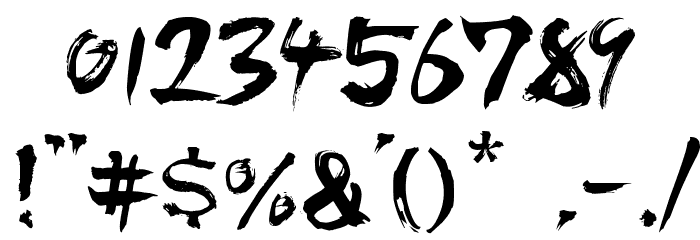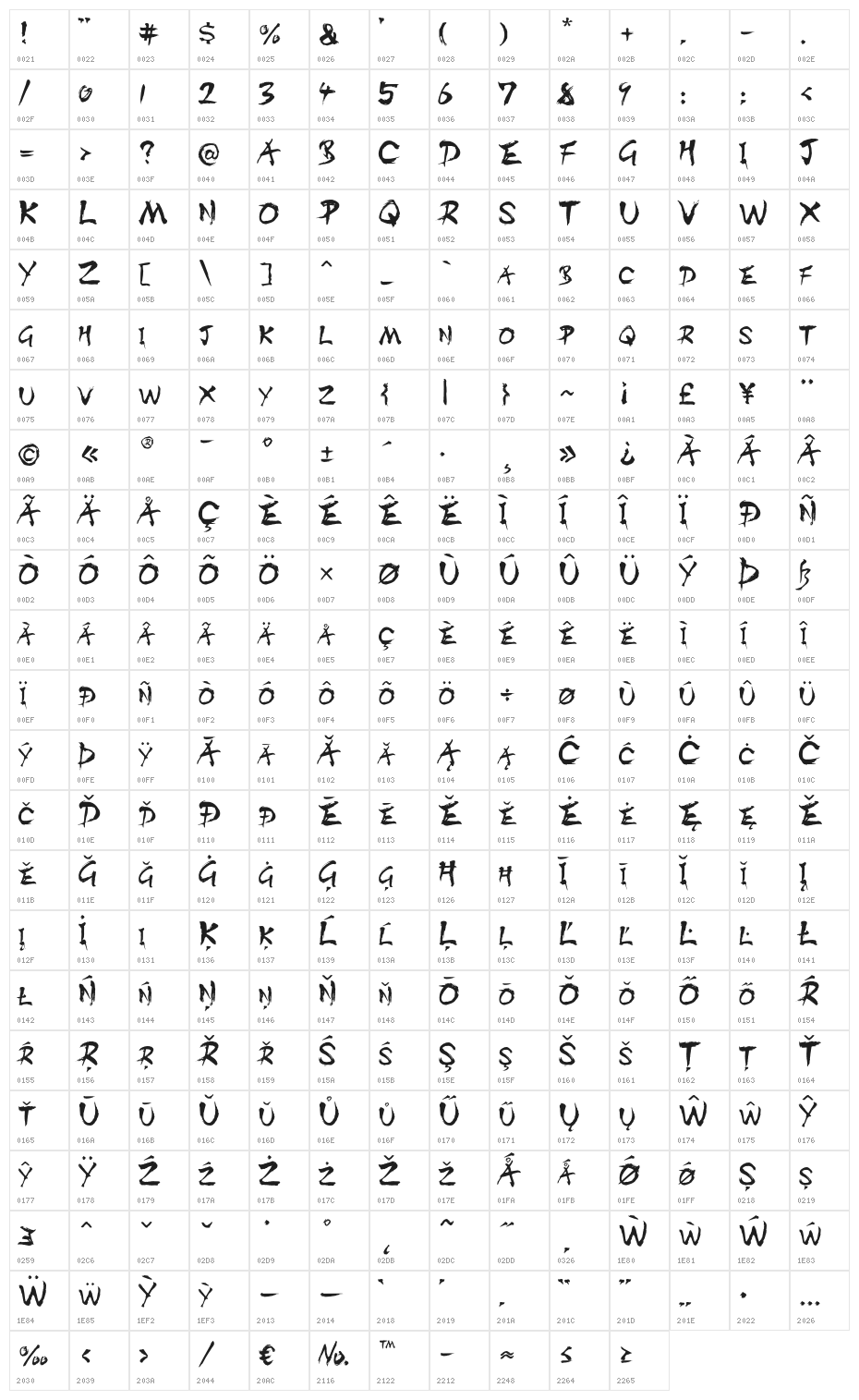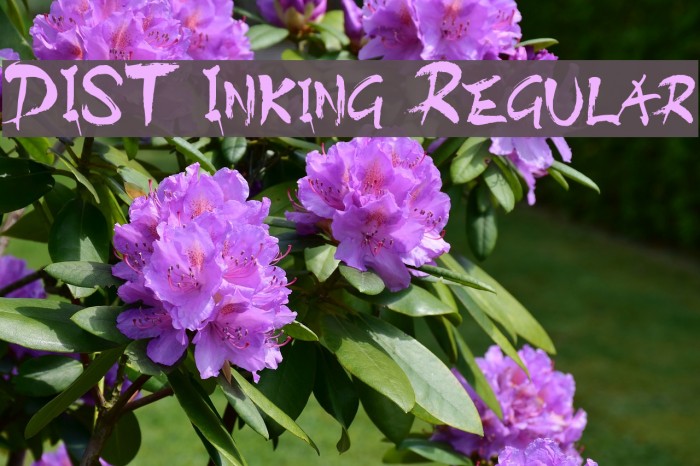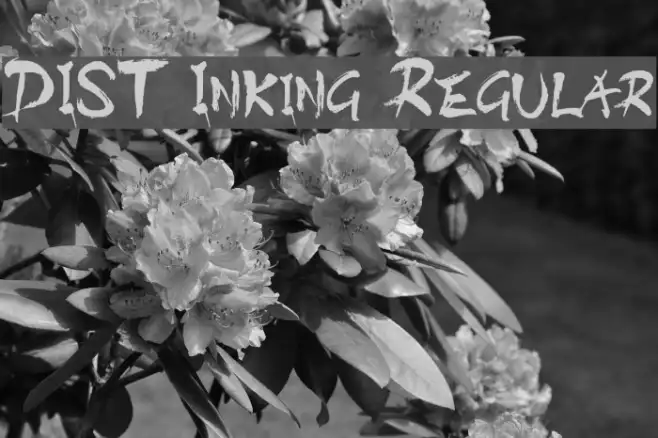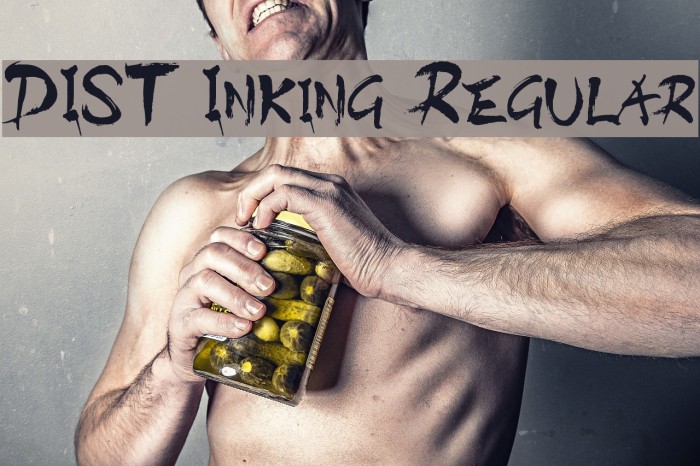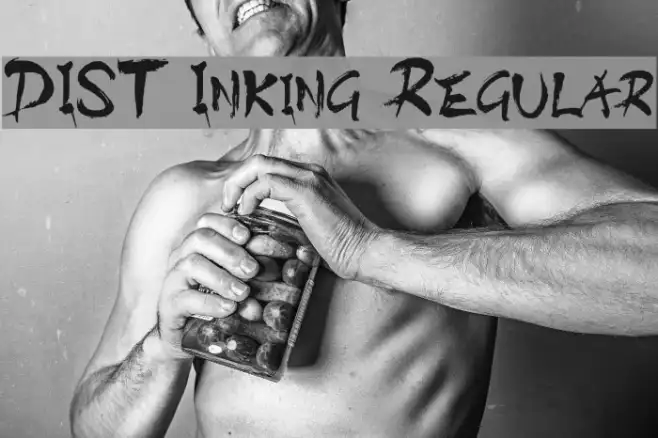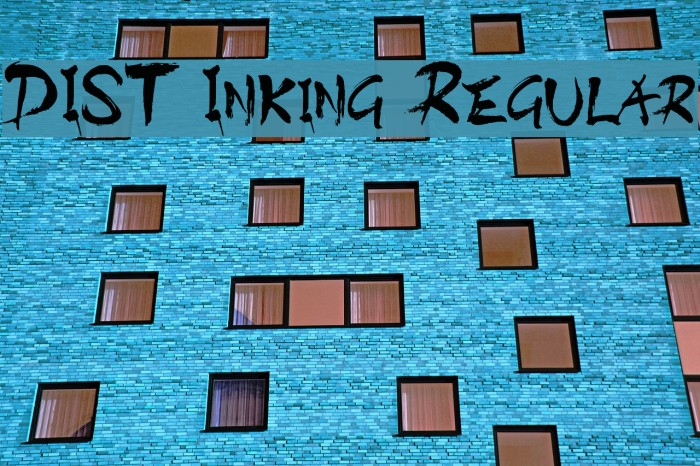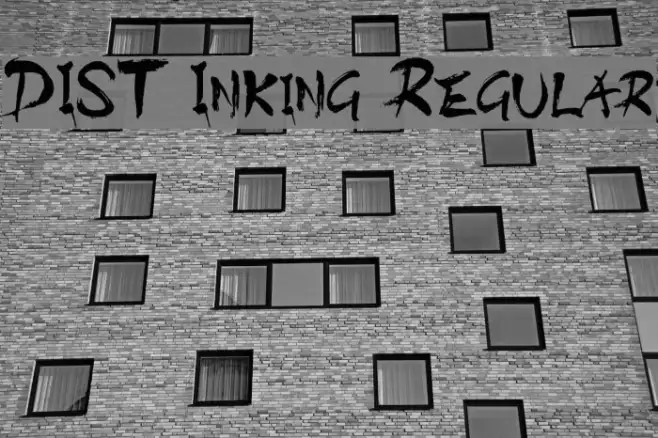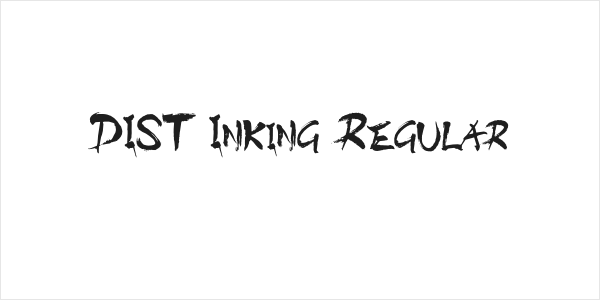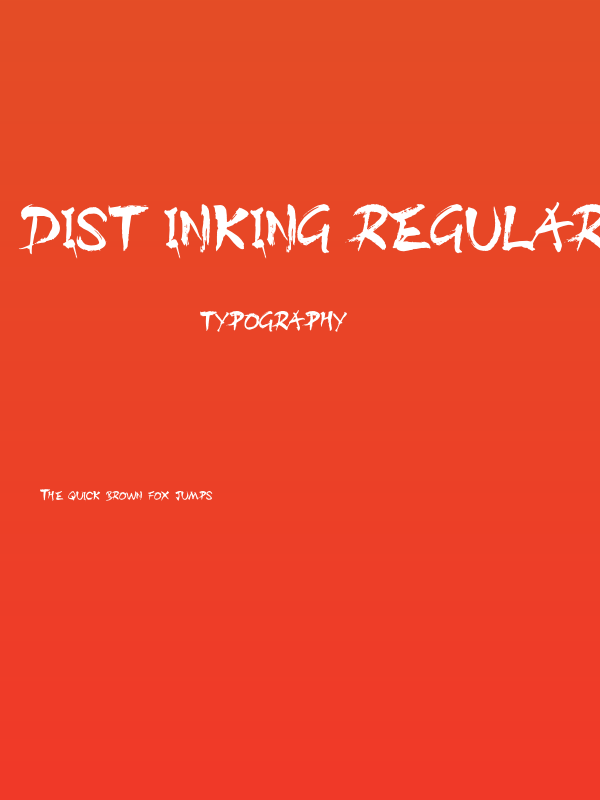
DIST Inking Regular Font
DIST Inking Regular Description
This font features a bold, expressive style reminiscent of brush strokes, giving it a dynamic and energetic appearance. The characters are irregular and have a hand-drawn quality, with varying thicknesses that create a sense of movement. The uppercase and lowercase letters maintain a consistent style, while the numbers and special characters complement the overall aesthetic. The font's rough edges and organic feel make it suitable for projects that require a personal touch or artistic flair.